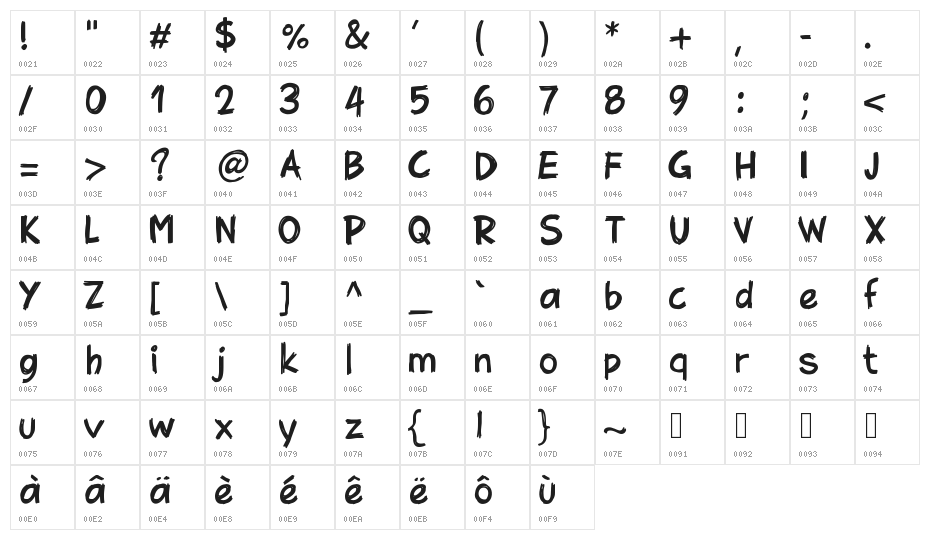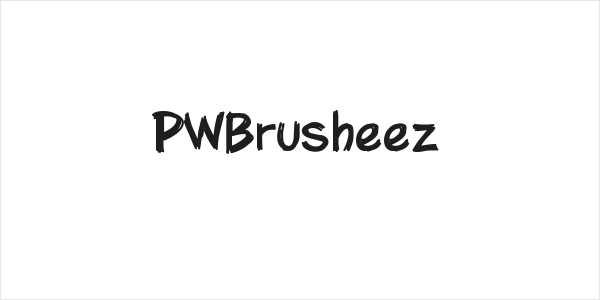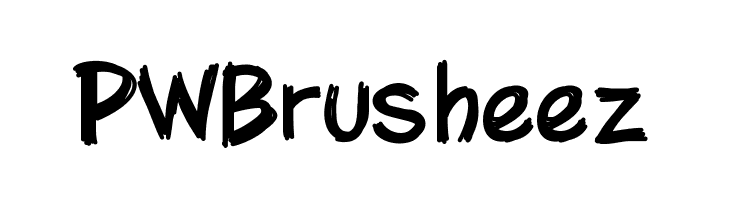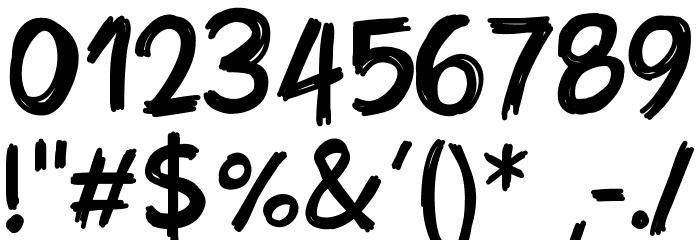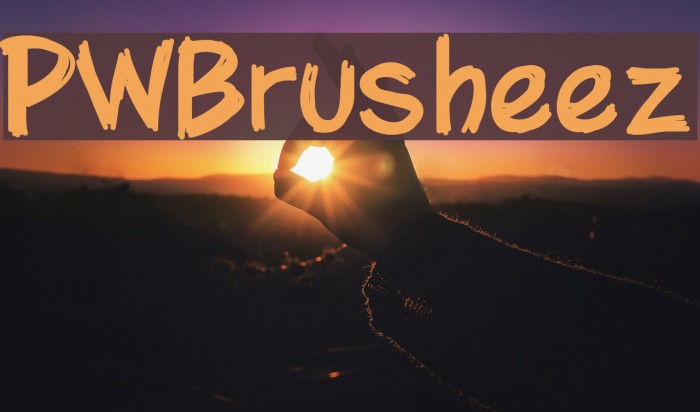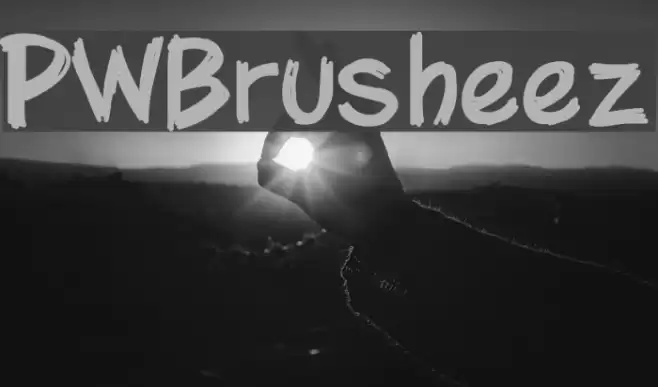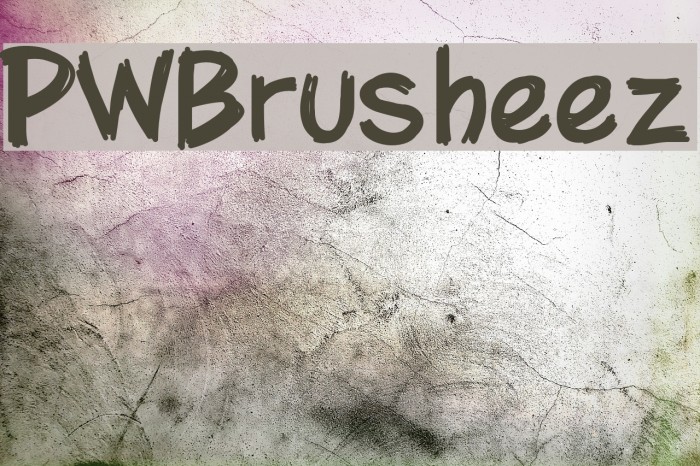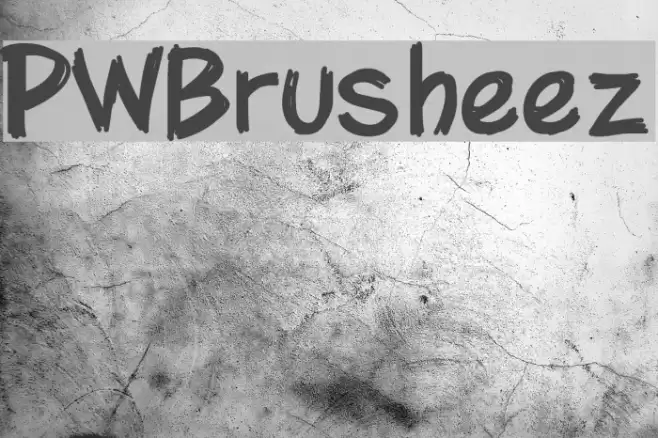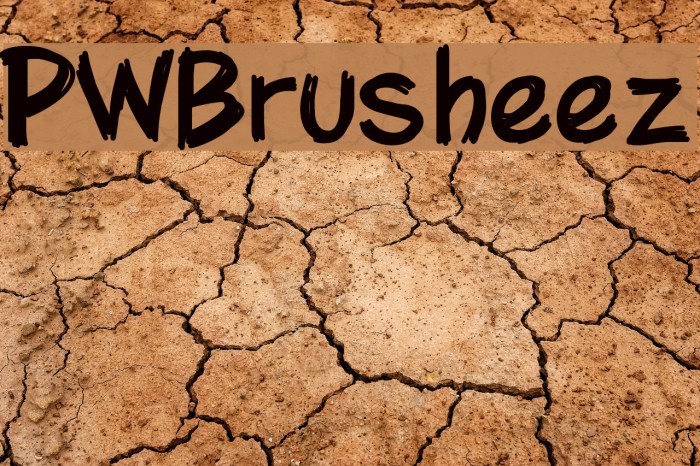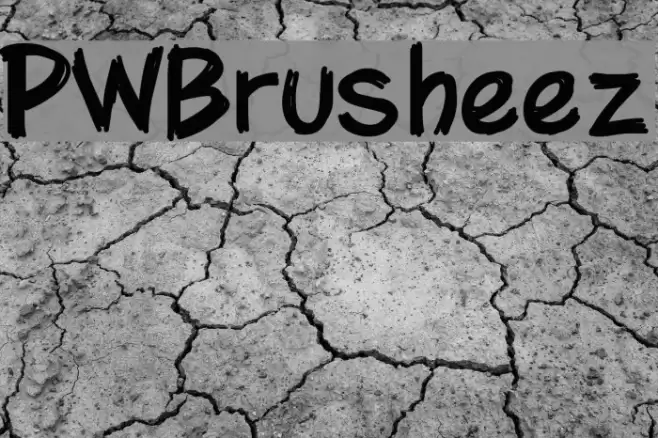
PWBrusheez Font
PWBrusheez Description
This font exhibits a bold and expressive brush style, characterized by its dynamic and energetic strokes. The letters have a hand-drawn appearance, with irregular edges and varying thickness, giving it a lively and informal feel. The uppercase and lowercase letters maintain a consistent style, with a playful and artistic flair. Numbers and special characters are equally bold and expressive, matching the overall aesthetic. The font's design is suitable for projects that require a personal touch or a creative, artistic vibe.
| Use Case | Logos, Headlines, Posters |
| Proposed Projects | Ideal for creative projects such as posters, invitations, branding, and social media graphics where a personal and artistic touch is desired. |